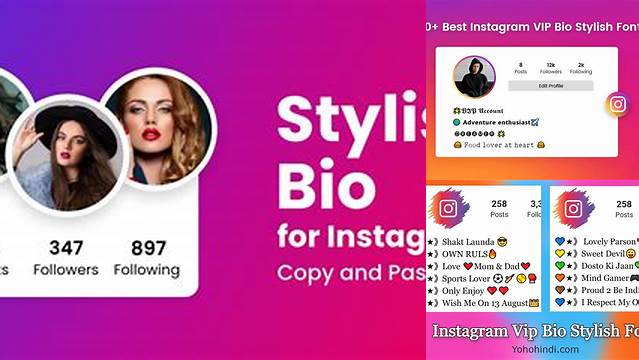
Cool Fonts For Instagram Bio: Copy & Paste!
Hey guys! Want to spice up your Instagram bio and make it stand out? You've come to the right place! Using copy and paste fonts for Instagram bio is a super easy way to add some personality and flair to your profile. Instead of being stuck with the same old boring font, you can use all sorts of cool and unique styles. Let’s dive into how you can do this and make your bio pop!
Instagram Bio Fonts: An Introduction
So, what's the deal with Instagram bio fonts? Basically, Instagram only offers a single font option for your bio. That’s where copy and paste fonts for Instagram bio come in! These aren't actually fonts that you install on Instagram. Instead, they are special Unicode characters that look like different fonts. You generate these using online tools, copy the text, and then paste it into your Instagram bio. This trick allows you to add a unique touch to your profile without any technical hassle. It’s a fantastic way to express your personality and grab the attention of anyone who visits your profile. Why settle for ordinary when you can have extraordinary, right?
Why Use Special Fonts for Your Instagram Bio?
There are plenty of reasons to use copy and paste fonts for Instagram bio. First and foremost, it makes your profile stand out. In a sea of generic bios, a unique font can be a real eye-catcher. Secondly, it allows you to express your personality and brand identity. Whether you're going for playful, elegant, or edgy, the right font can communicate your vibe instantly. And thirdly, it's just plain fun! Experimenting with different fonts can add a creative spark to your Instagram experience. After all, who doesn't want their profile to look a bit more interesting?
How to Find and Use Copy Paste Fonts for Instagram Bio
Finding and using copy and paste fonts for Instagram bio is easier than you might think. There are tons of websites and apps that generate these fonts for you. Simply type your desired text into the tool, and it will generate a variety of font options. Then, just copy the font you like and paste it into your Instagram bio. Some popular websites include LingoJam, FontGet, and IGFonts.io. These tools are generally free and super user-friendly. So, you can start experimenting with different fonts right away!
Best Font Generators for Instagram
Choosing the right font generator can make all the difference. LingoJam is a popular choice because it's simple and easy to use. FontGet offers a wider variety of fonts, including some more unusual and creative options. IGFonts.io is another great option, especially if you're looking for fonts that are specifically designed for Instagram. All of these generators are free and offer a range of different styles to choose from, making it easy to find the perfect font for your bio.
Step-by-Step Guide to Changing Your Instagram Bio Font
Here's a step-by-step guide to changing your Instagram bio font using copy and paste fonts for Instagram bio:
- Go to a font generator website like LingoJam, FontGet, or IGFonts.io.
- Type your desired text into the input box.
- Browse the generated font options and choose the one you like.
- Copy the font.
- Open Instagram and go to your profile.
- Tap "Edit Profile."
- Paste the font into your bio.
- Save your changes.
And that's it! You've successfully changed your Instagram bio font.
Common Issues and How to Fix Them
Sometimes, you might encounter issues when using copy and paste fonts for Instagram bio. One common problem is that some fonts don't display correctly on all devices. This is because some devices don't support all Unicode characters. If you notice that your font looks weird on some devices, try choosing a different font that is more widely supported. Another issue is that some fonts can make your bio harder to read. Choose a font that is clear and legible, even on small screens. If all else fails, you can always revert back to the default font.
Tips for Choosing the Perfect Font
Choosing the perfect font for your Instagram bio involves considering a few factors. Think about your brand identity and what message you want to convey. If you're a playful brand, a fun and whimsical font might be a good choice. If you're a more serious brand, a clean and modern font might be better. Also, consider the readability of the font. Choose a font that is easy to read, even on small screens. And finally, don't be afraid to experiment! Try out a few different fonts and see what looks best.
Examples of Creative Instagram Bios with Unique Fonts
Need some inspiration? Here are a few examples of creative Instagram bios using unique fonts:
- "✨ Living my best life ✨"
- "🌴 Chasing sunsets and good vibes 🌴"
- "📚 Bookworm and coffee addict ☕"
- "🎶 Music is my therapy 🎶"
- "🎨 Creating art and spreading joy 🎨"
These examples show how you can use fonts to add personality and flair to your bio. Get creative and have fun with it!
The Importance of a Good Instagram Bio
Your Instagram bio is like your digital business card. It's the first thing people see when they visit your profile, so it's important to make a good impression. A good bio should clearly communicate who you are, what you do, and why people should follow you. Using copy and paste fonts for Instagram bio can help you stand out and grab attention, but it's also important to have compelling content that resonates with your target audience. So, take the time to craft a bio that is both visually appealing and informative.
Conclusion: Make Your Instagram Bio Uniquely You!
So there you have it! Using copy and paste fonts for Instagram bio is a simple yet effective way to make your profile stand out. It’s all about expressing your personality and creating a memorable first impression. Have fun experimenting with different fonts and emojis, and don't be afraid to get creative. Your Instagram bio is your digital canvas, so make it uniquely you! Good luck, and happy Instagramming!